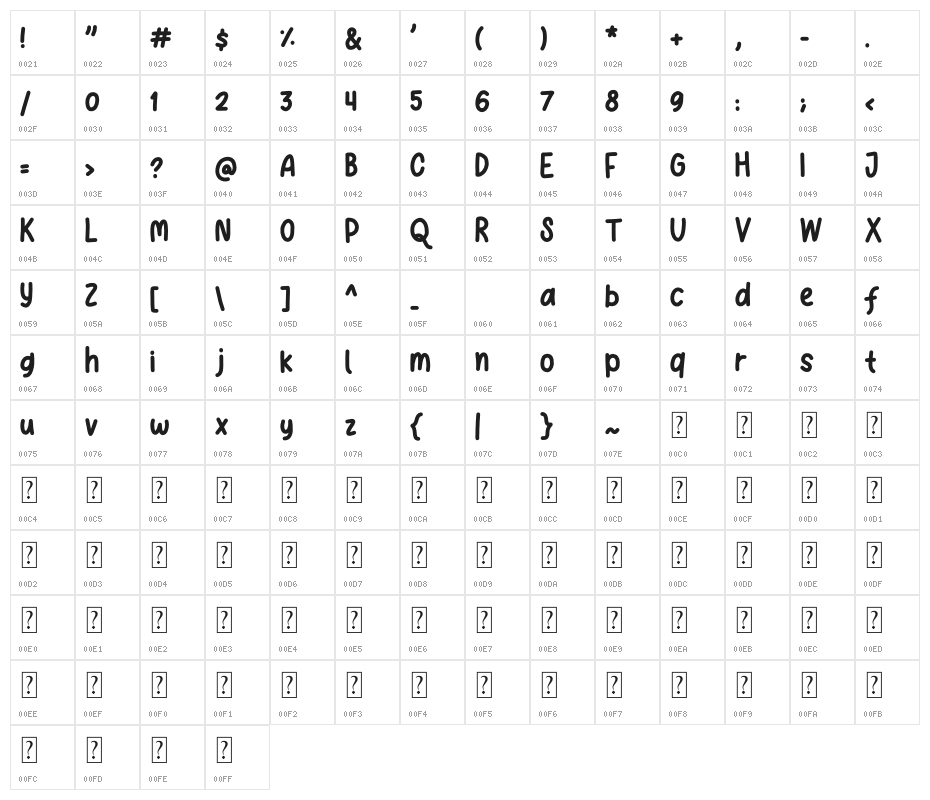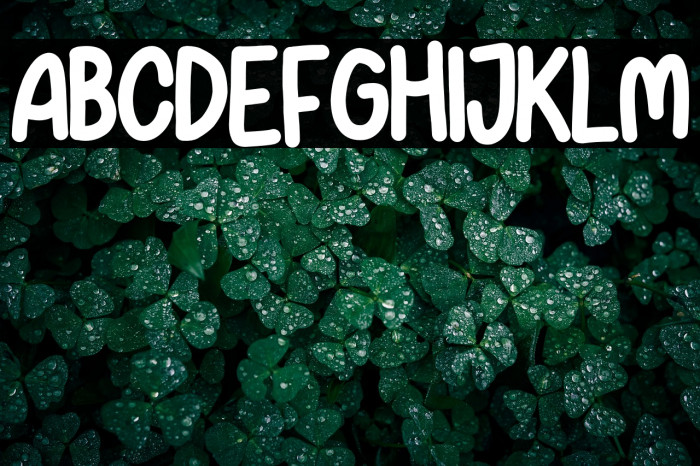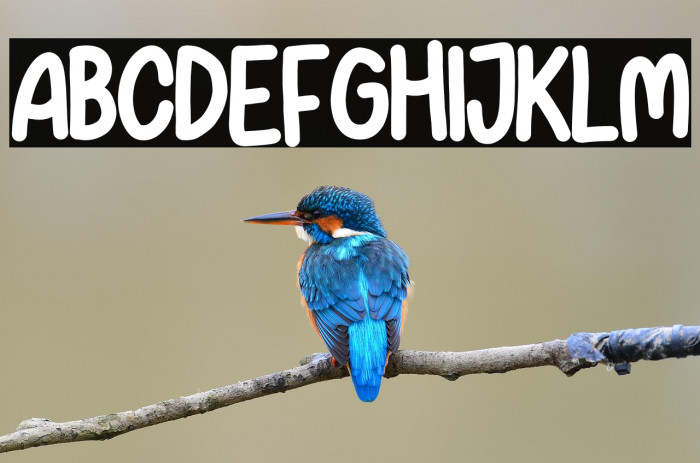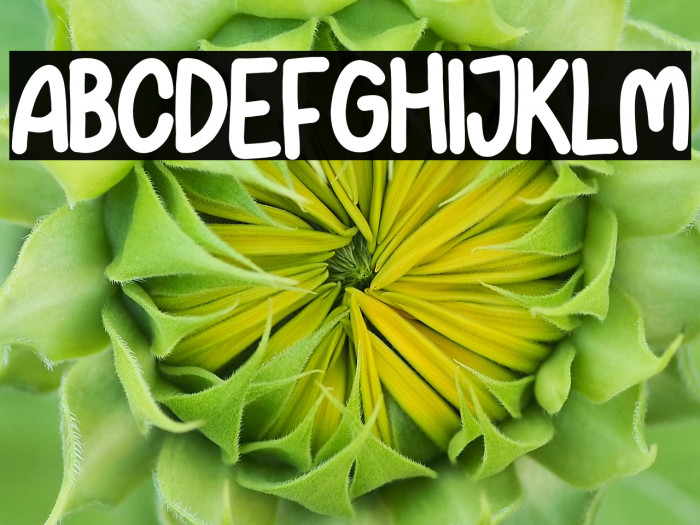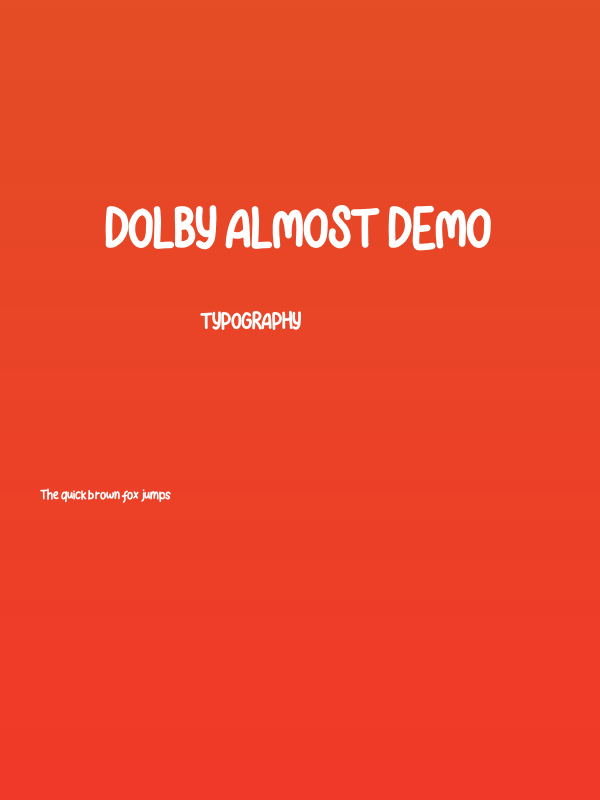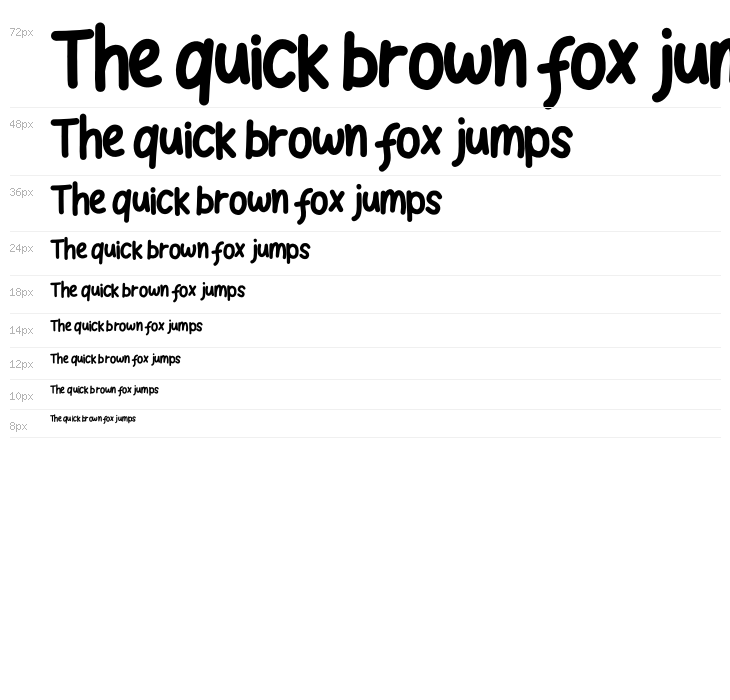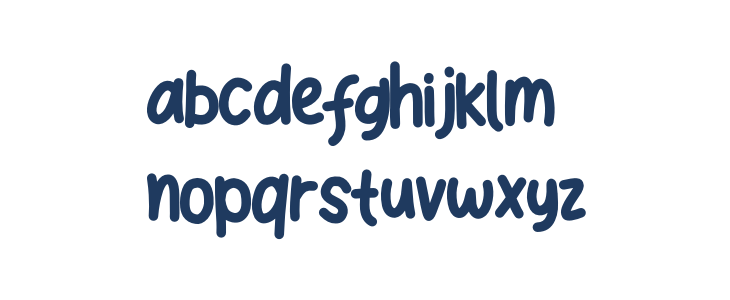
DOLBY ALMOST DEMO Font
DOLBY ALMOST DEMO Description
This font features a playful and rounded style, characterized by its bold and smooth curves. The letters are evenly spaced with a slightly condensed appearance, giving it a friendly and approachable feel. The uppercase and lowercase letters maintain a consistent design, enhancing readability while adding a touch of whimsy. The numerals and special characters follow the same rounded aesthetic, ensuring uniformity across all glyphs. This font's unique style makes it suitable for projects that require a casual and inviting tone.
| Proposed Projects | Ideal for children's books, playful branding, casual invitations, and creative posters. |